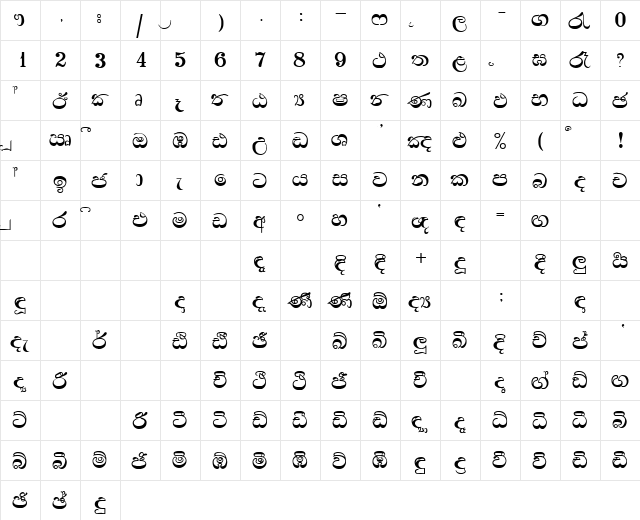
Ajith New S Regular
Design Context for Ajith New S Typeface
Ajith New S offers clean, dependable letterforms without strong stylistic allegiance, making it a practical choice for designers who need flexibility.